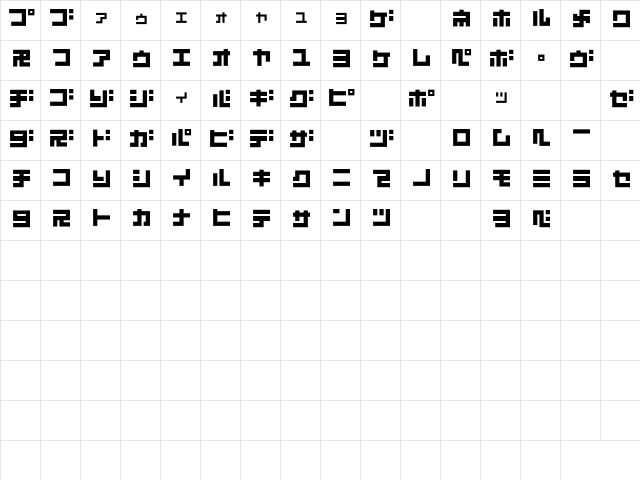
D3 Superstructurism Kat_In Regular
Design Context for D3 Superstructurism Kat_In Typeface
D3 Superstructurism Kat_In is a composed and adaptable typeface that performs quietly and consistently across a wide range of design contexts.